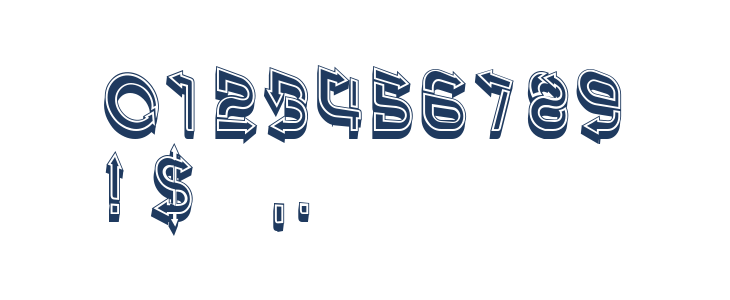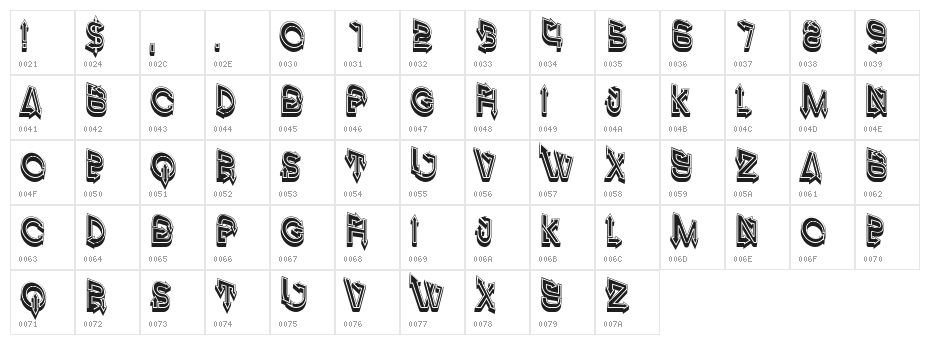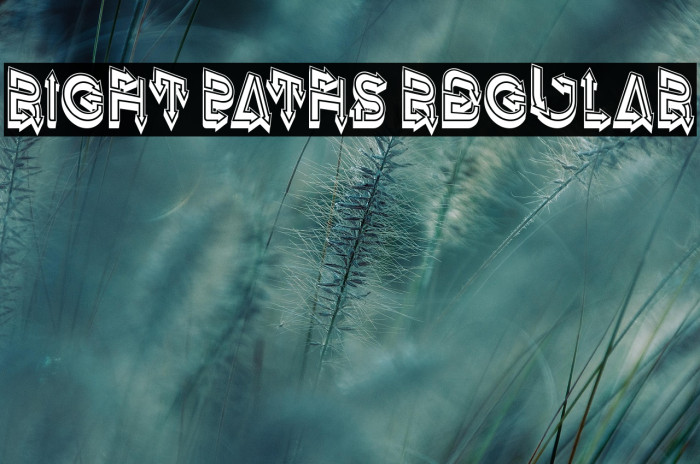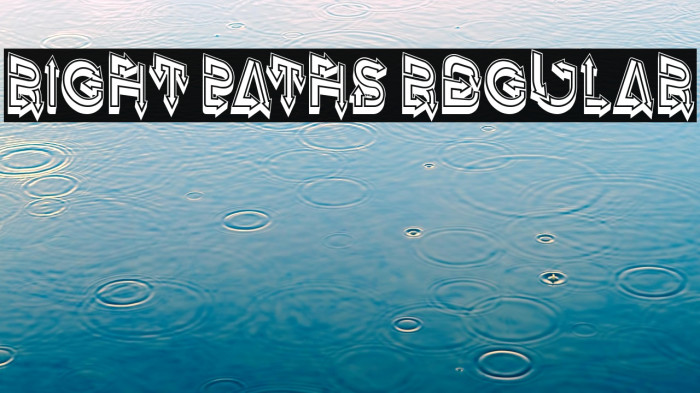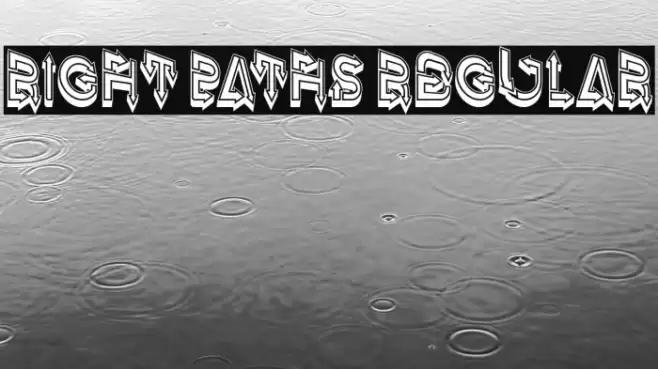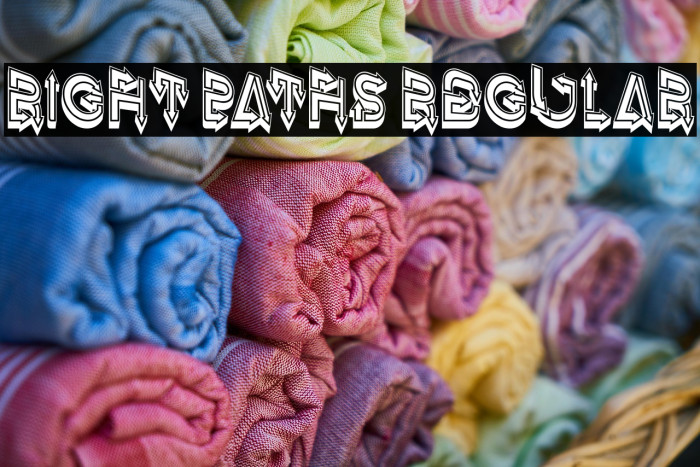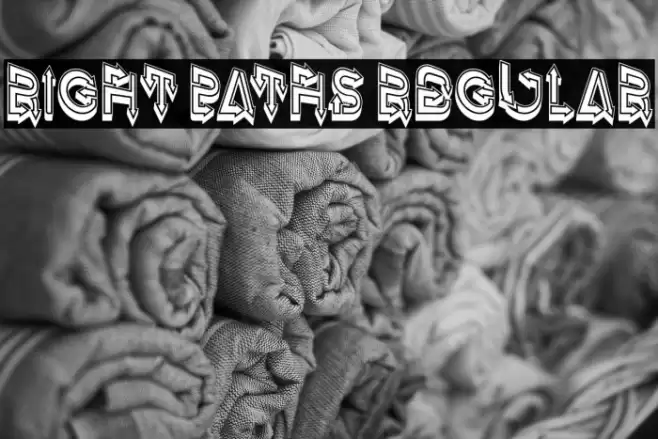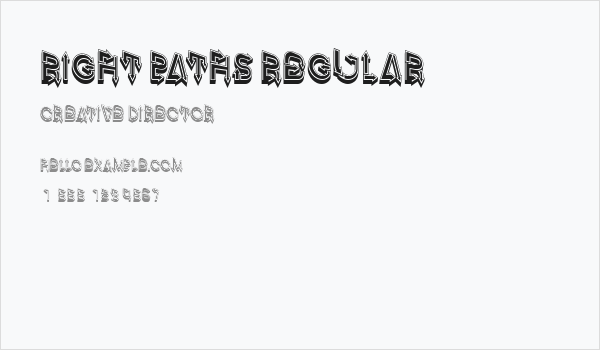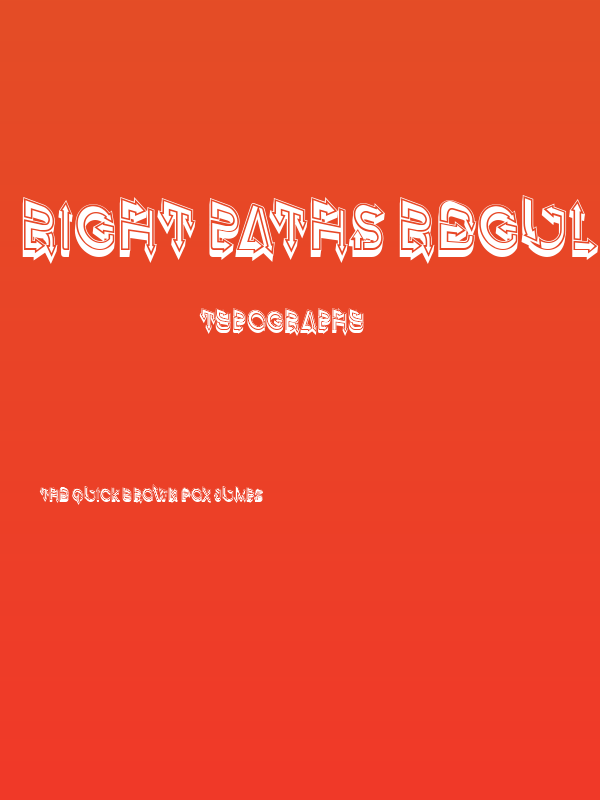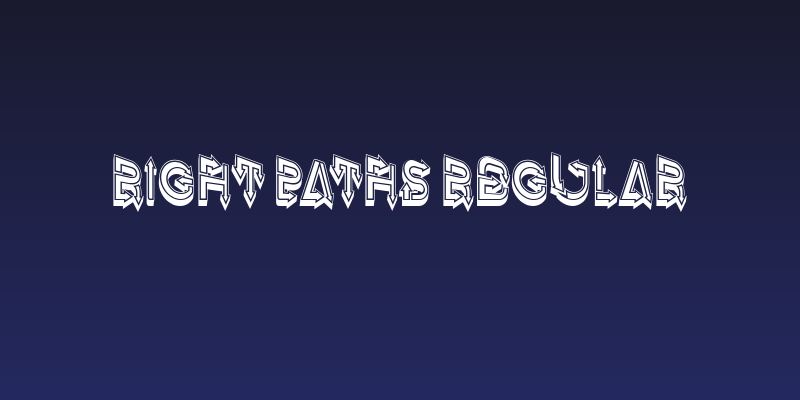
Right Paths Regular Font
Right Paths Regular Description
This font features a bold and dynamic design with a three-dimensional effect, characterized by sharp, angular lines and arrow-like extensions. The letters are outlined with a thick black border, giving them a striking and impactful appearance. The geometric shapes and pointed edges create a sense of movement and direction, making it visually engaging. The font maintains a consistent style across uppercase, lowercase, numerals, and special characters, ensuring uniformity. Its unique style is ideal for projects that require a modern and edgy look.